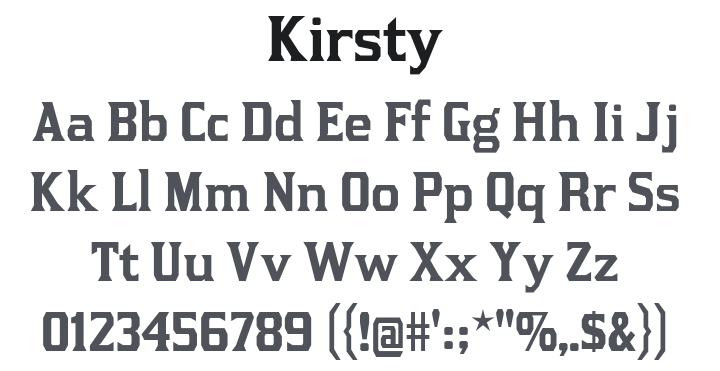
Kirsty Font Family
About Kirsty
Kirsty is a distinctive display serif built on an octagonal framework that fuses industrial sharpness with Latin-inspired detailing. Its high waistlines and angular geometry give it a confident, timeless character that adapts from heritage themes to modern branding. Five weights with obliques offer flexibility across posters, packaging, and digital titles...bold cuts deliver impact, while lighter styles bring refined control. Supporting Latin, Greek, Cyrillic, and Vietnamese scripts, Kirsty provides global reach with a structure that feels deliberate, versatile, and unmistakably original.